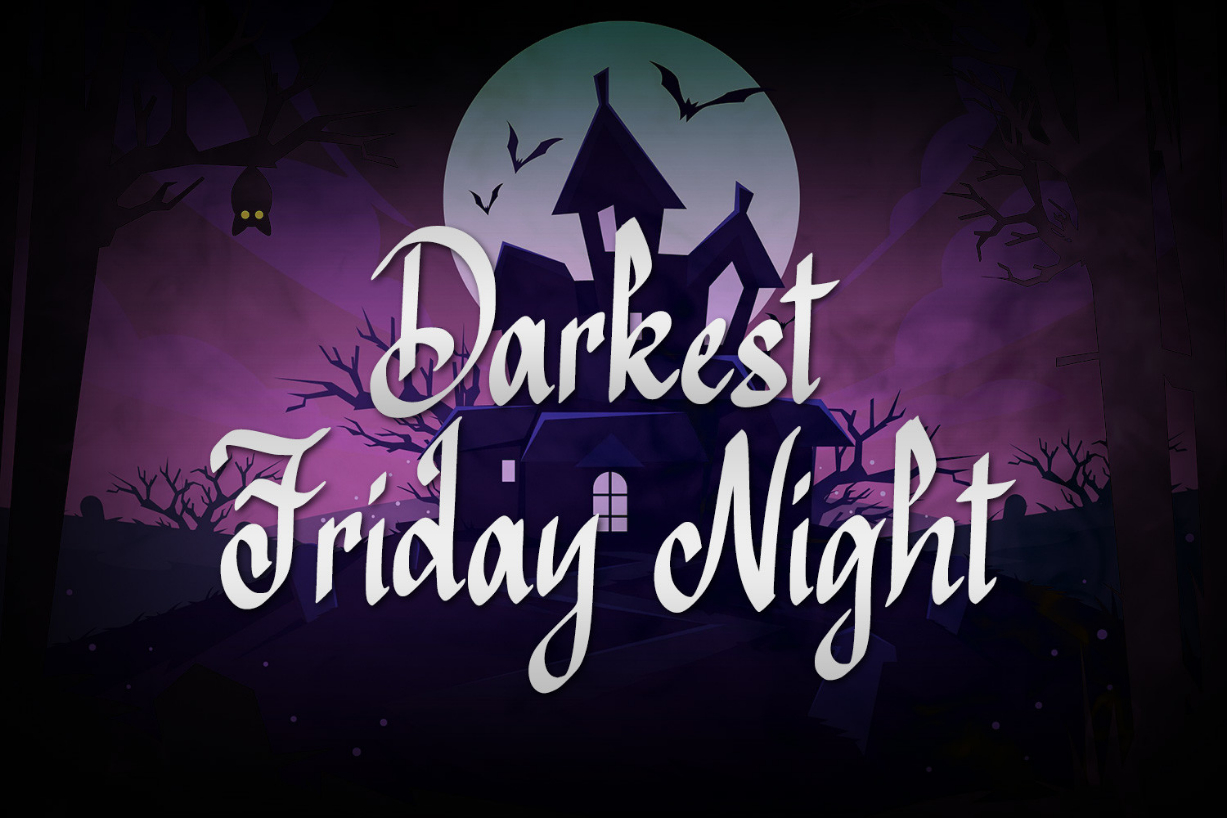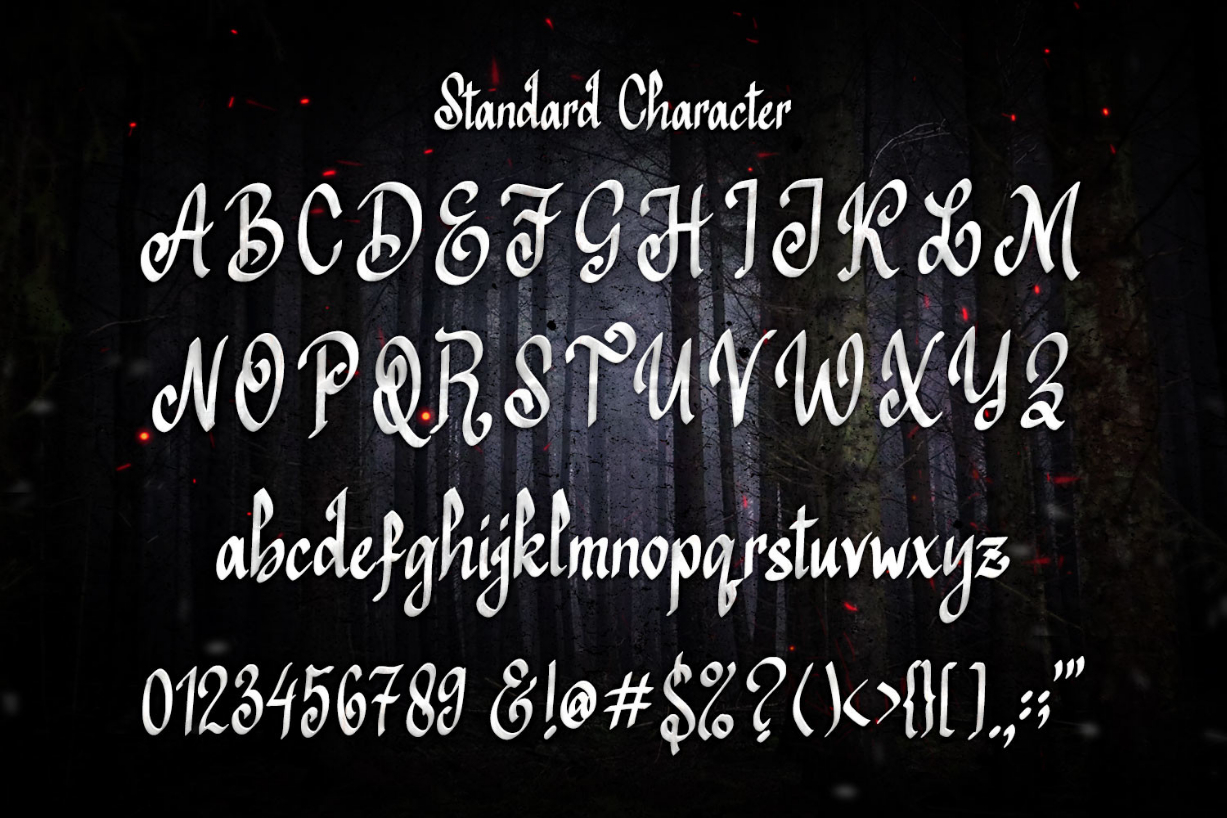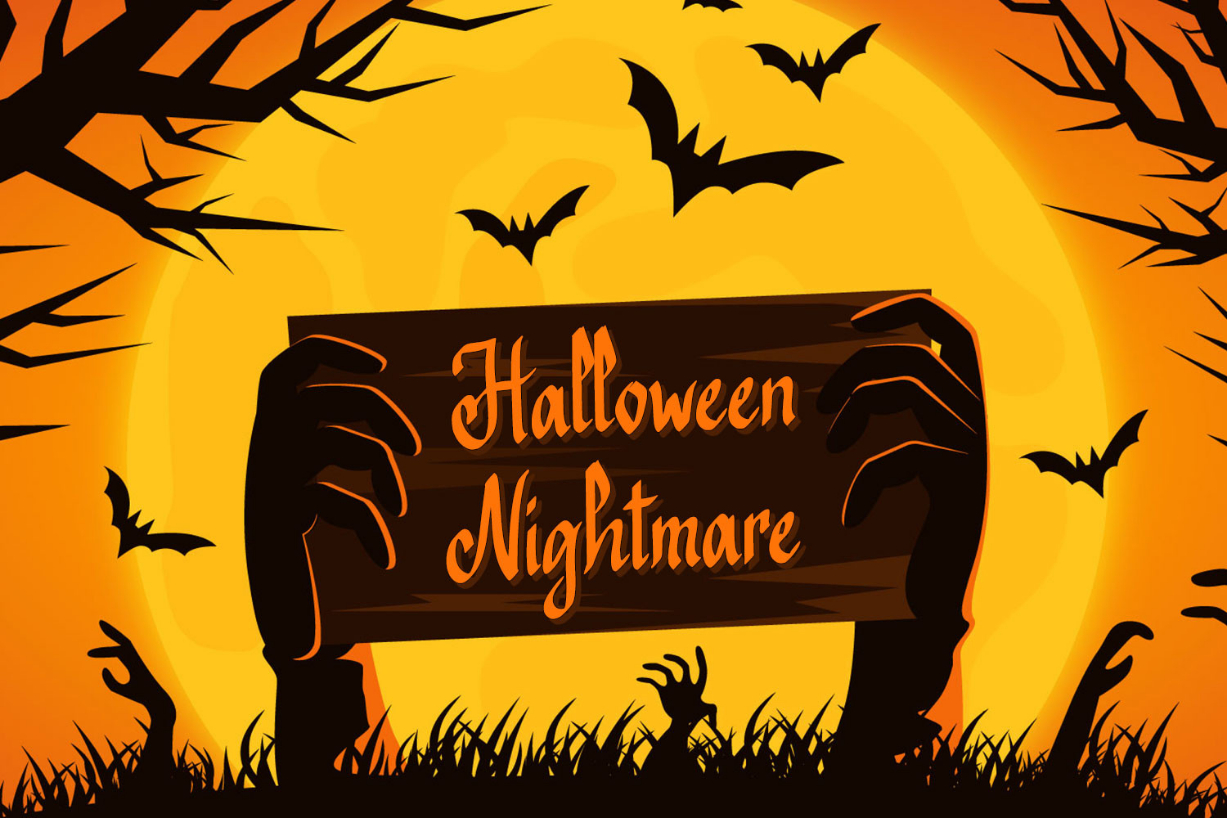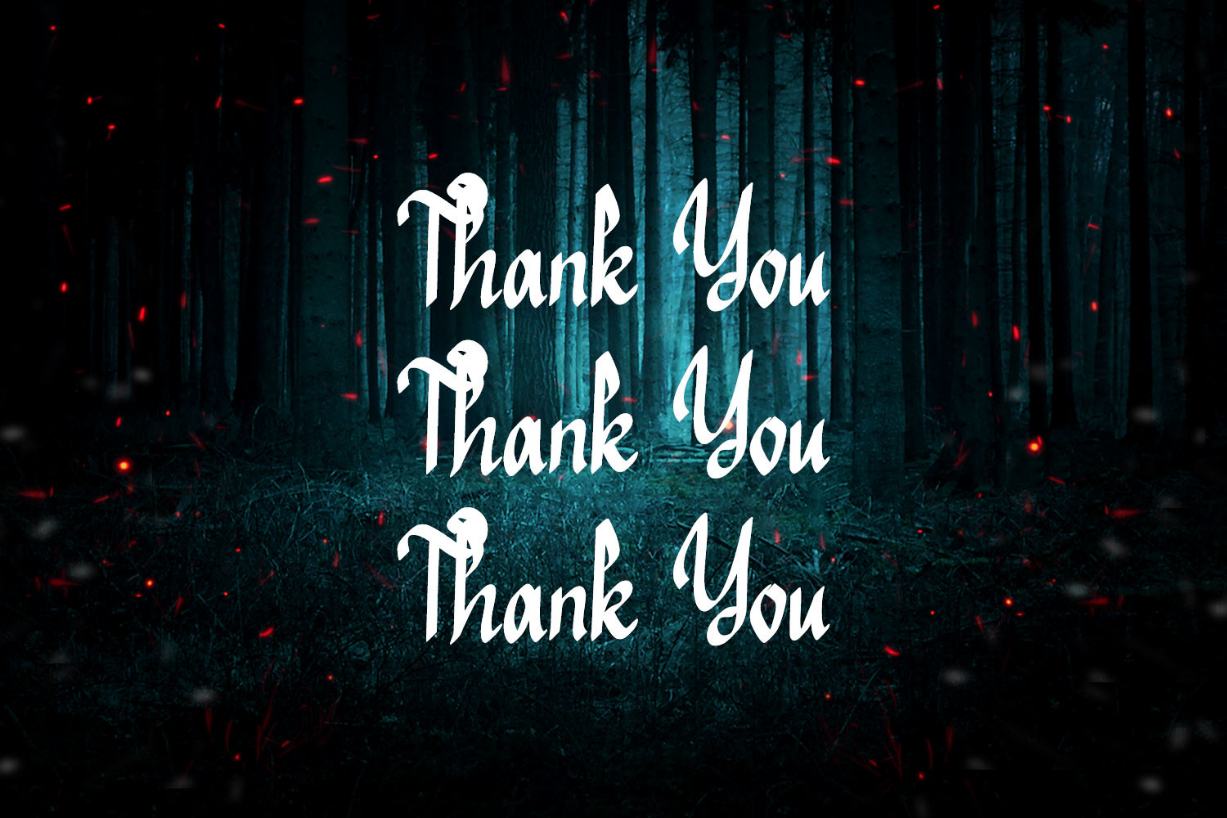
Mirakosta Font
About Mirakosta Font
Mirakosta is a blackletter font inspired by vintage signs and retro style labels. Whatever the topic, this font will be a wonderful asset to your font library, as it has the potential to enhance any creation.